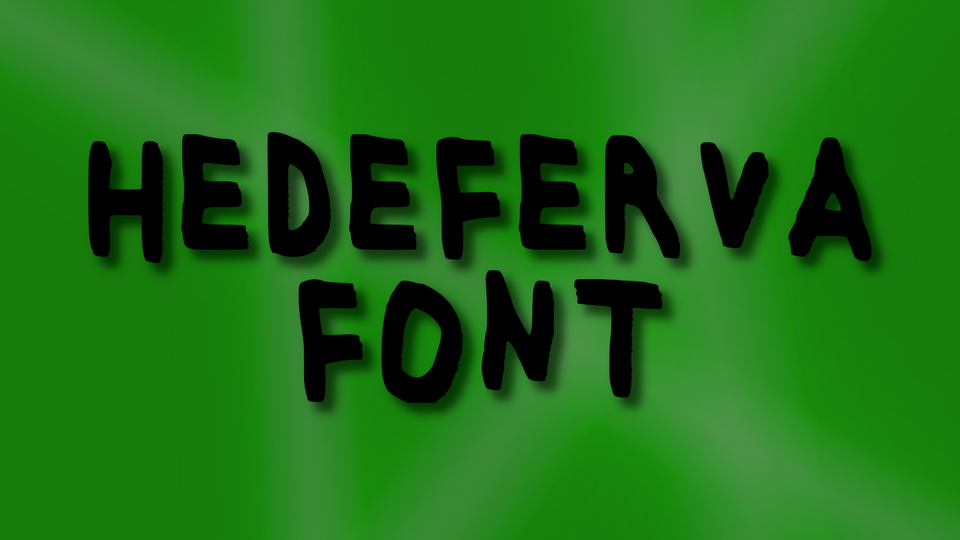
Feb 6, 2025Script & HandwrittenHedeferva Font Hedeferva is a simple and casual brush font. With its natural hand painted look the font is perfect for crafts, posters, quotes and other projects that need a personal touch. Font DetailsDesigned by: PerefectFontsWebsiteLicense: Free for commercial use Download Hedeferva FontFile size: 9.64 KBCreated: February 16, 2025Updated: February 16, 2025 Download Explore similar fonts Casa Lienta Font Honeybloom Font Easton Miles Font Afilora Font Revival Analog Font Moment Fruitful Font # Brush# Casual# Handwriting